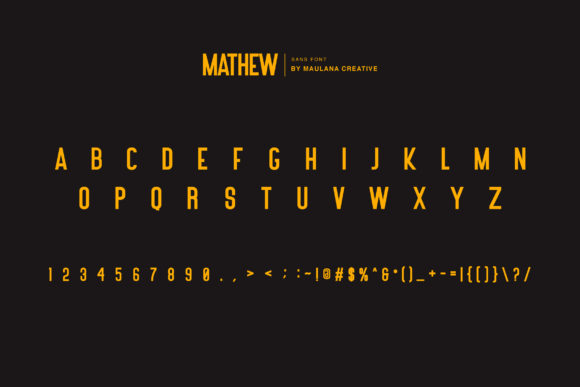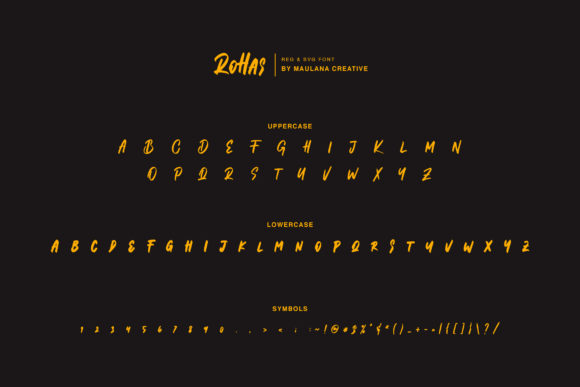
Introduction to Mathew Rohas Brush Duo Font
Mathew Rohas Brush Duo is perfectly suited to signature, stationery, logo, and much more.
Get motivated by its bold appearance .
Why Choose Mathew Rohas Brush Duo Font?
Mathew Rohas Brush Duo Font offers exceptional quality and versatility, making it a valuable addition to your design toolkit. Whether you’re creating for personal projects or commercial use, Mathew Rohas Brush Duo Font delivers professional results.